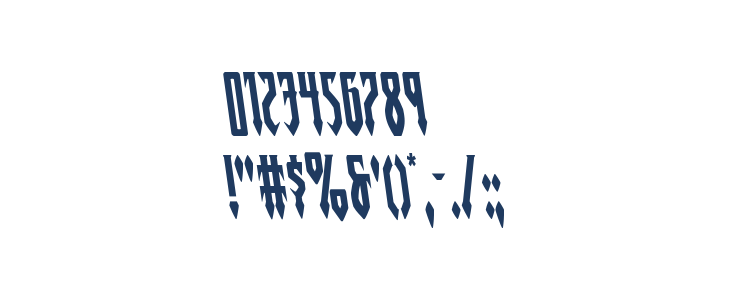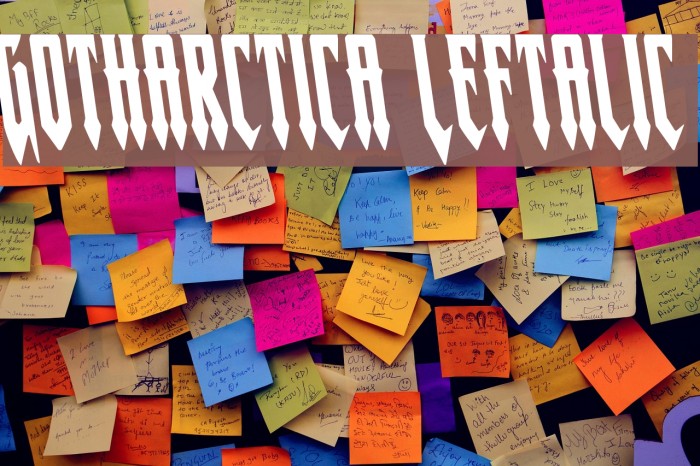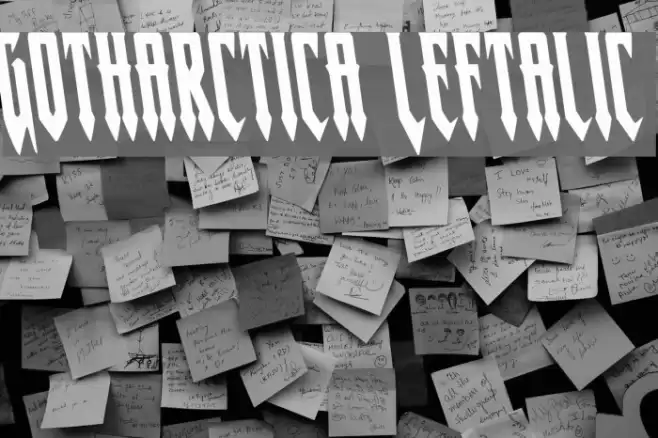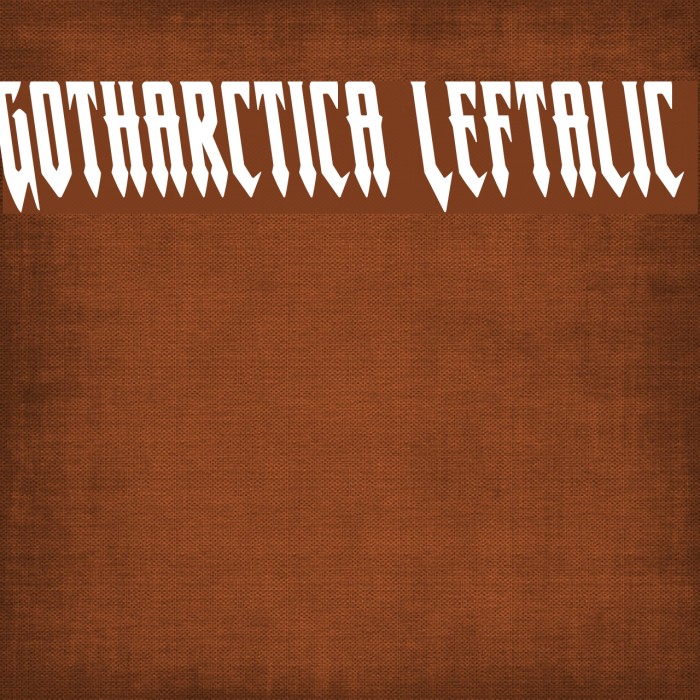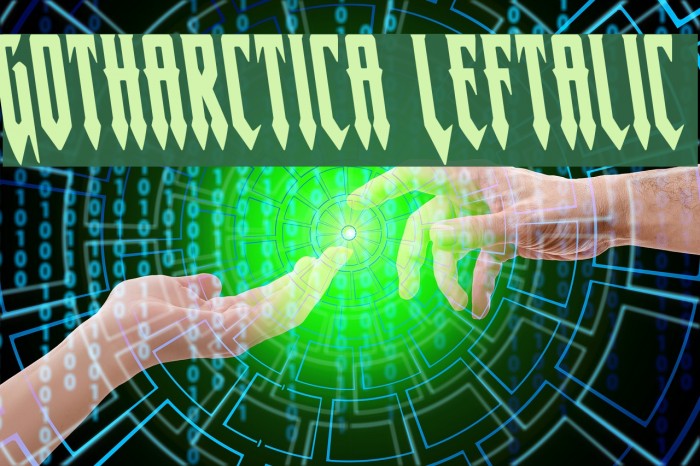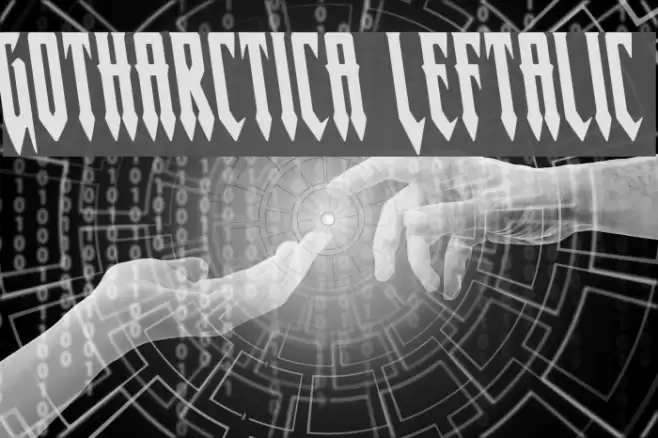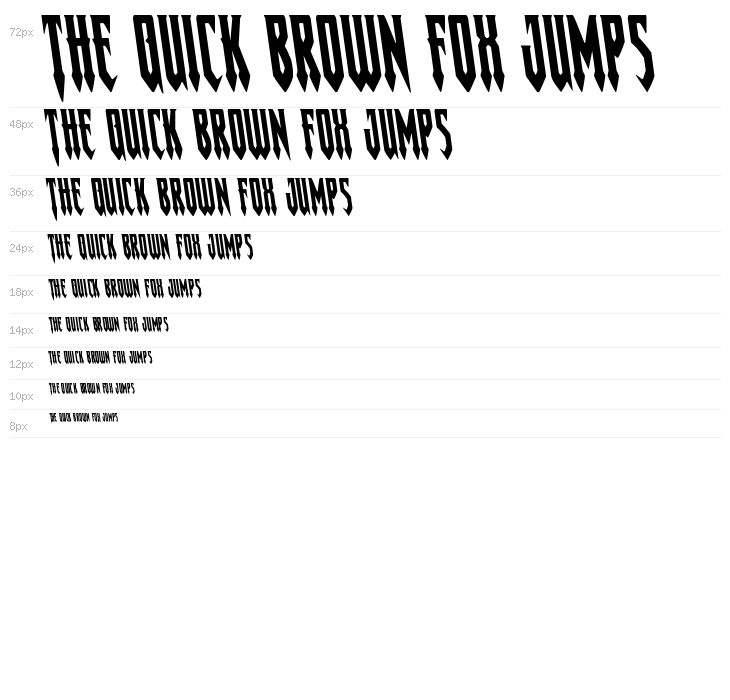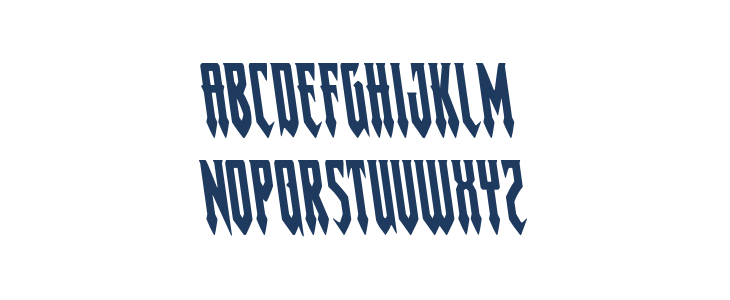
Gotharctica Leftalic Font
Gotharctica Leftalic Description
This font features a bold and angular design with sharp, pointed edges, giving it a striking and aggressive appearance. The characters are heavily stylized, with a consistent slant to the left, enhancing its dynamic and edgy look. The uppercase and lowercase letters maintain a uniform height, contributing to a cohesive visual flow. The numerals and special characters follow the same angular theme, ensuring consistency across all glyphs. This font's unique style makes it stand out, ideal for projects that require a bold statement.